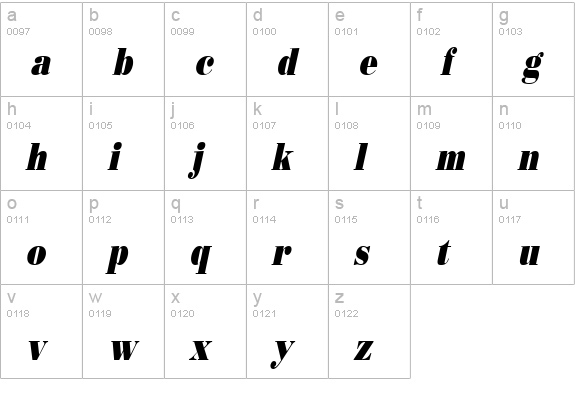
Beau Condensed Italic Font Details
Beau Condensed Italic is a distinctive, condensed-width, italic variant in the Beau typeface family \xE2\x80\x94 well suited to design and typography projects.